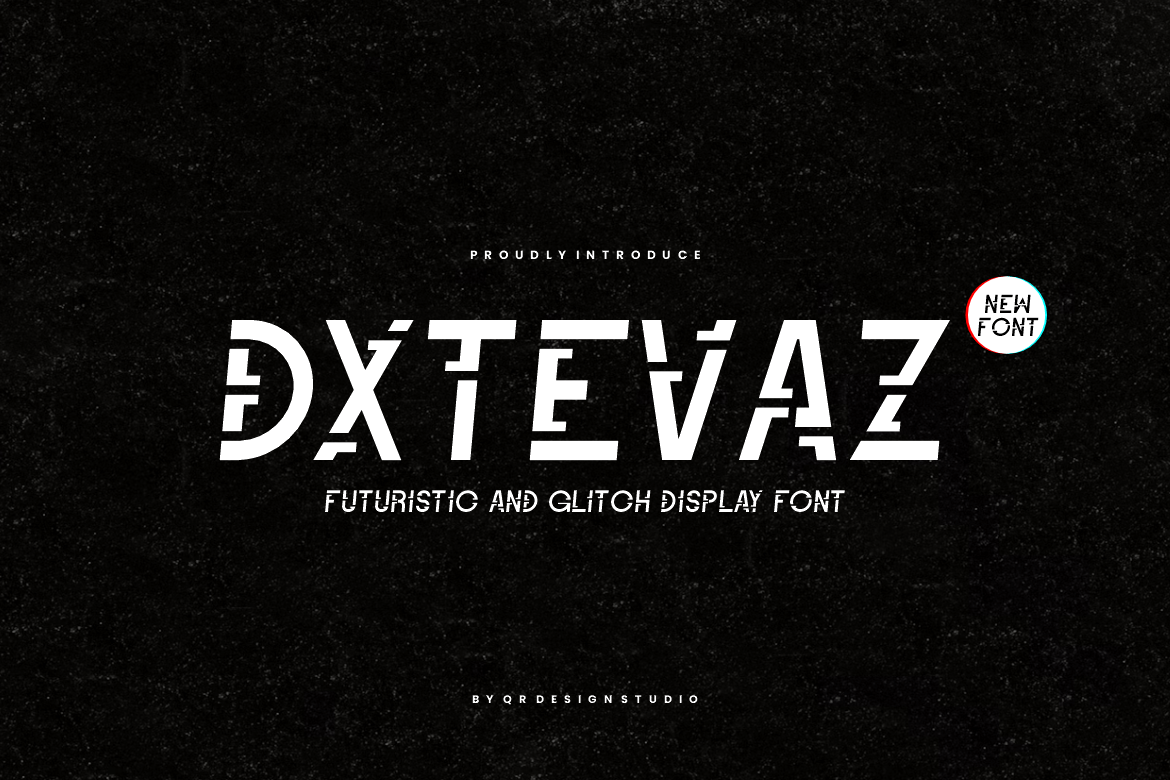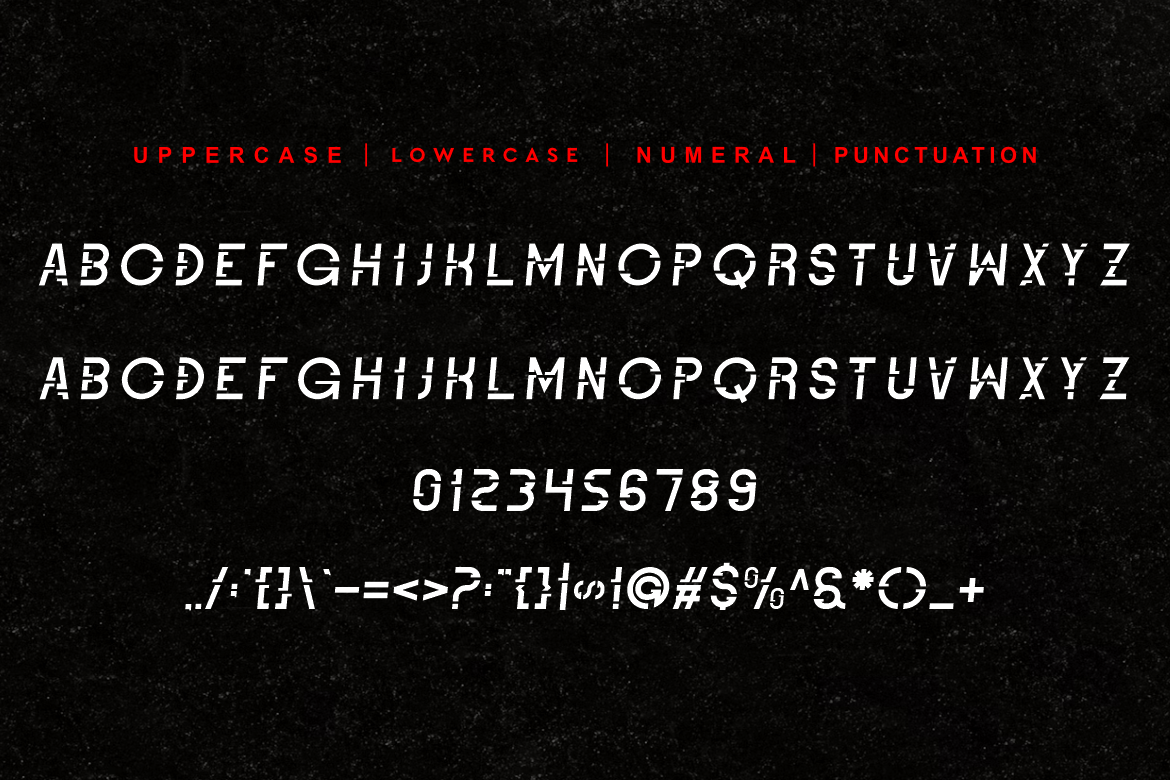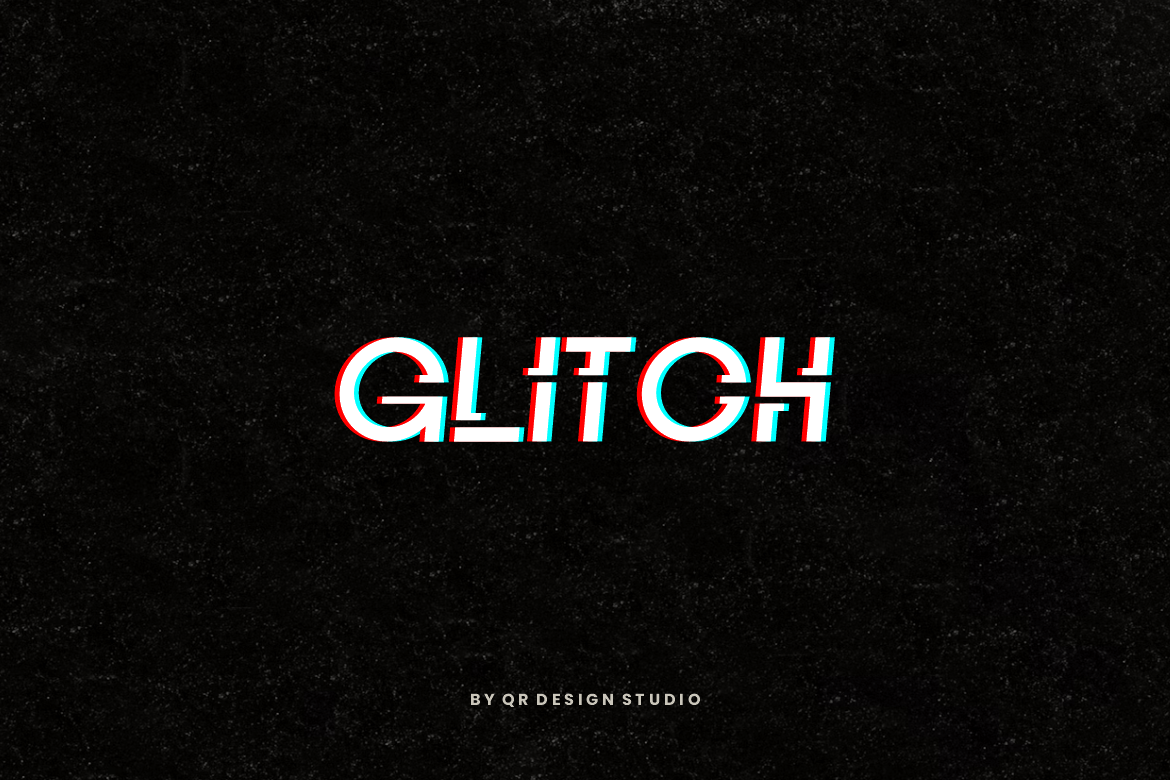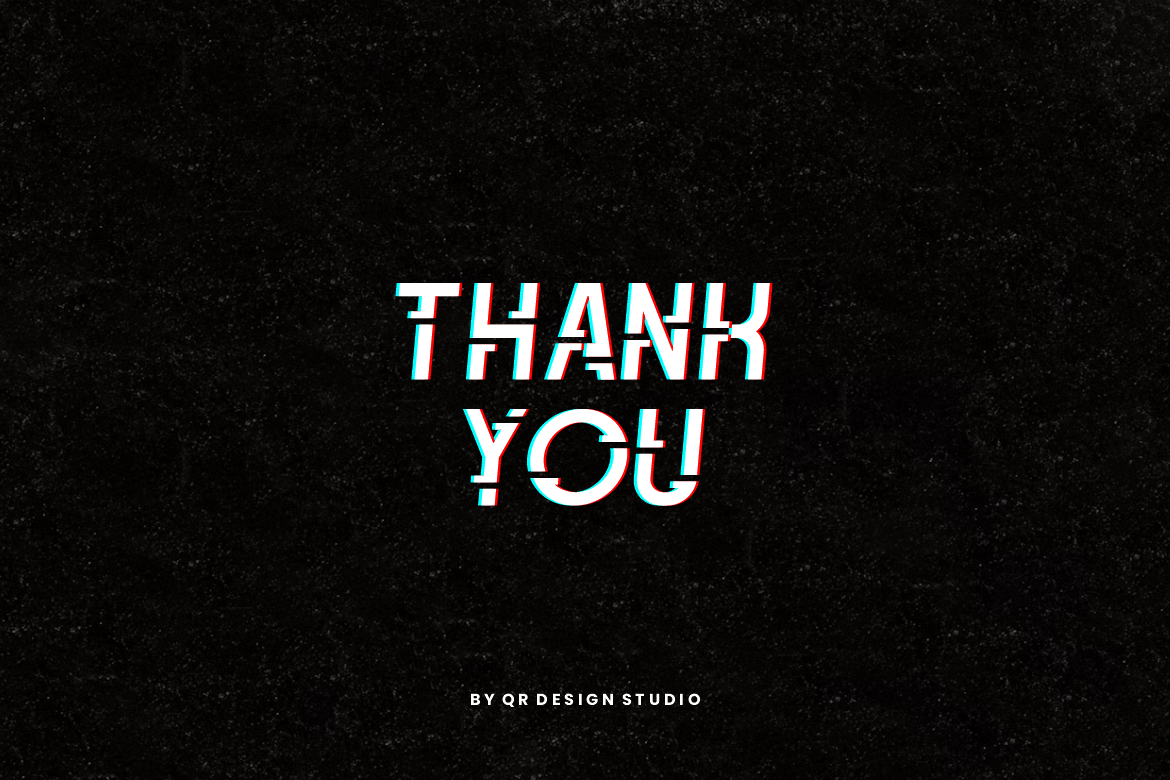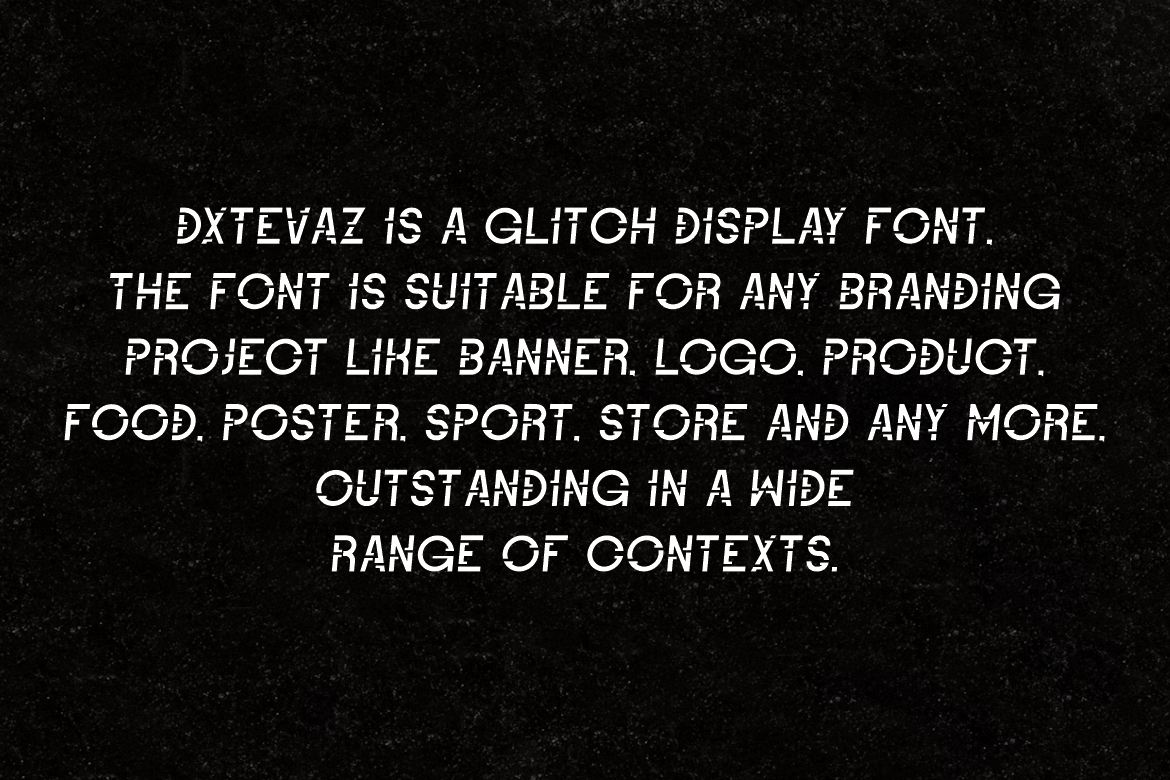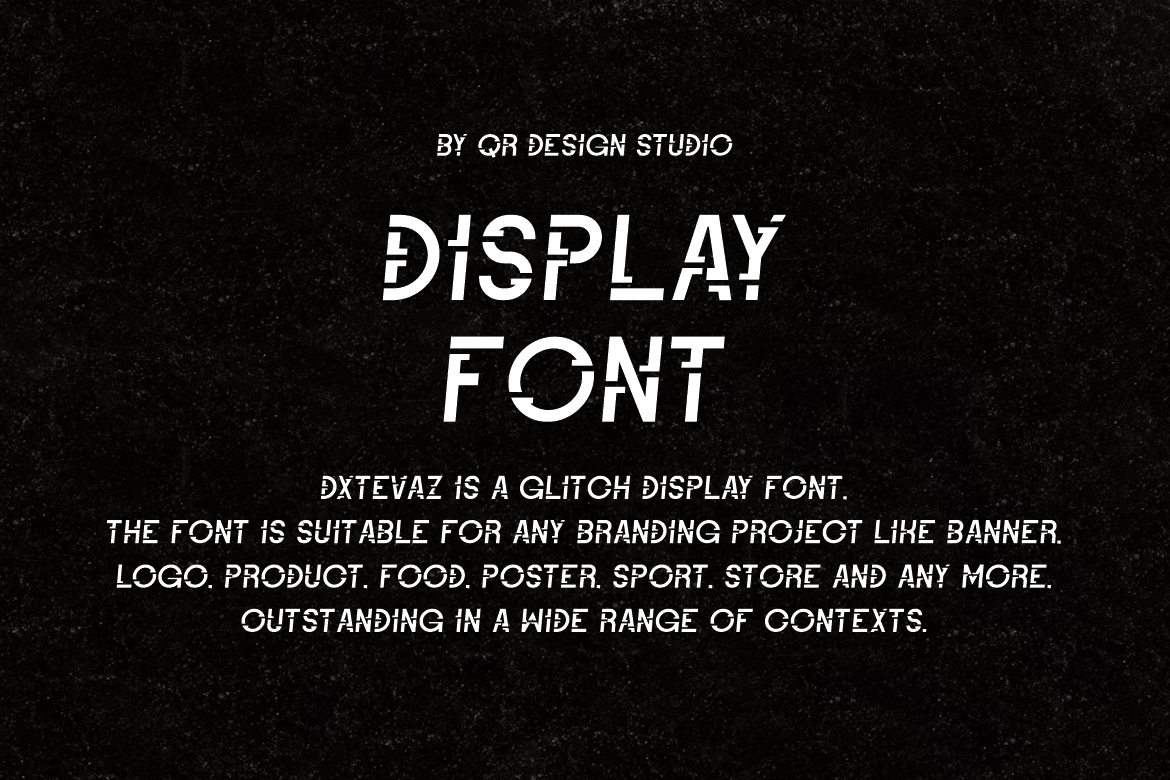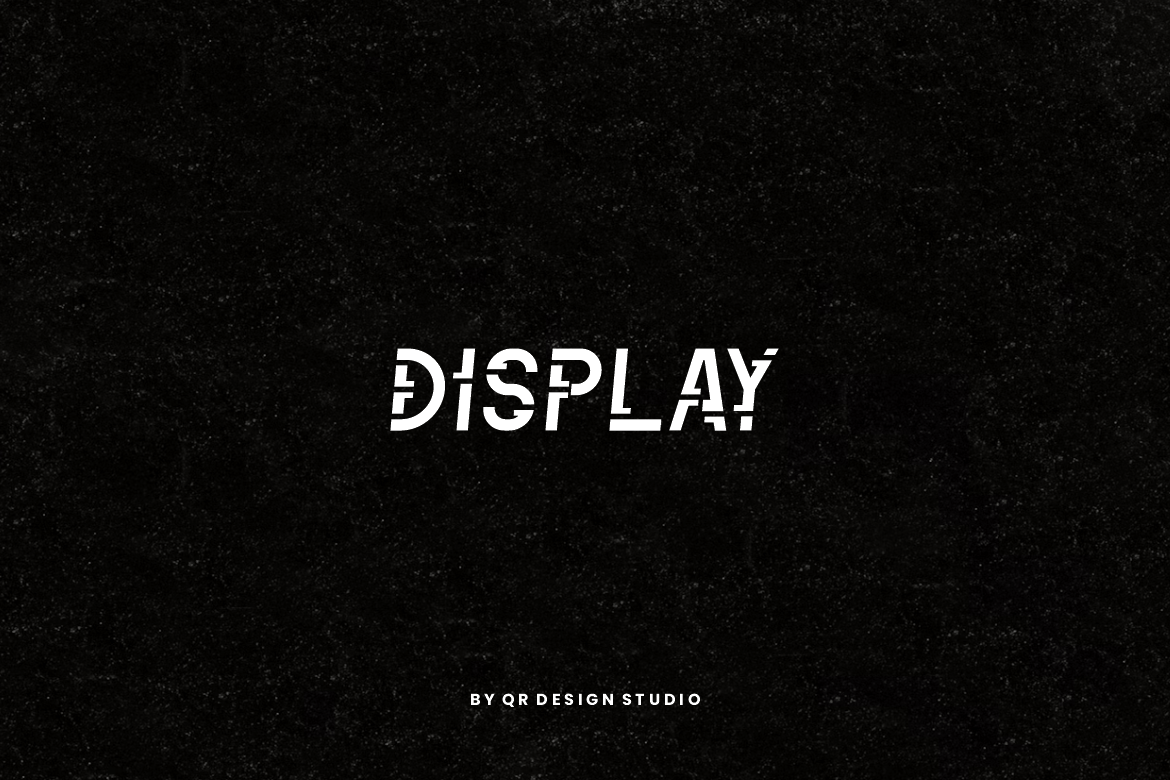
Dxtevaz – Futuristic & Glitch Font E62YZMD
**Dxtevaz Font** is a Glitch and authentic display font.
The font is suitable for any branding project like poster, logo, sport, and many more.
Outstanding in a wide range of contexts.